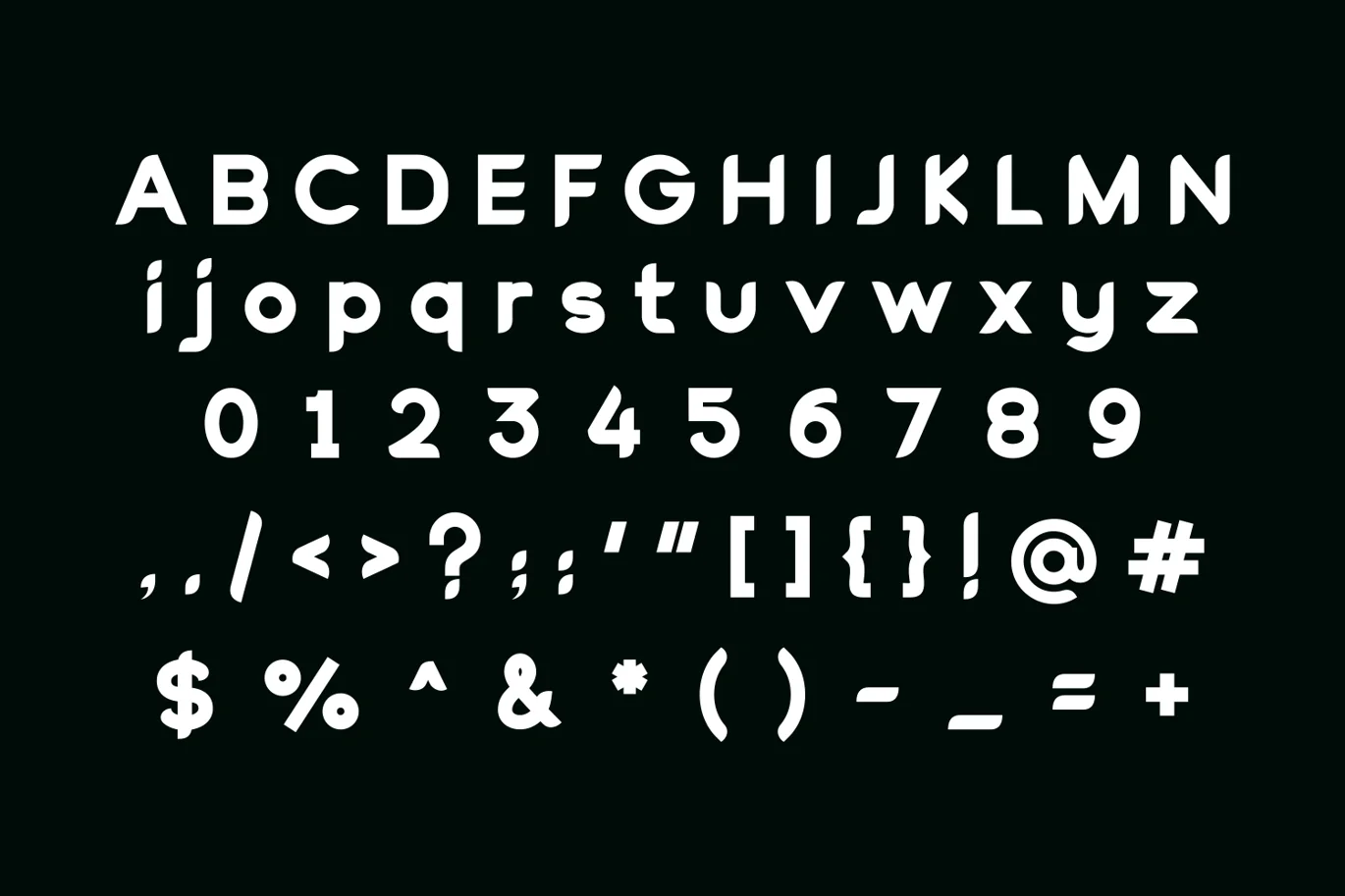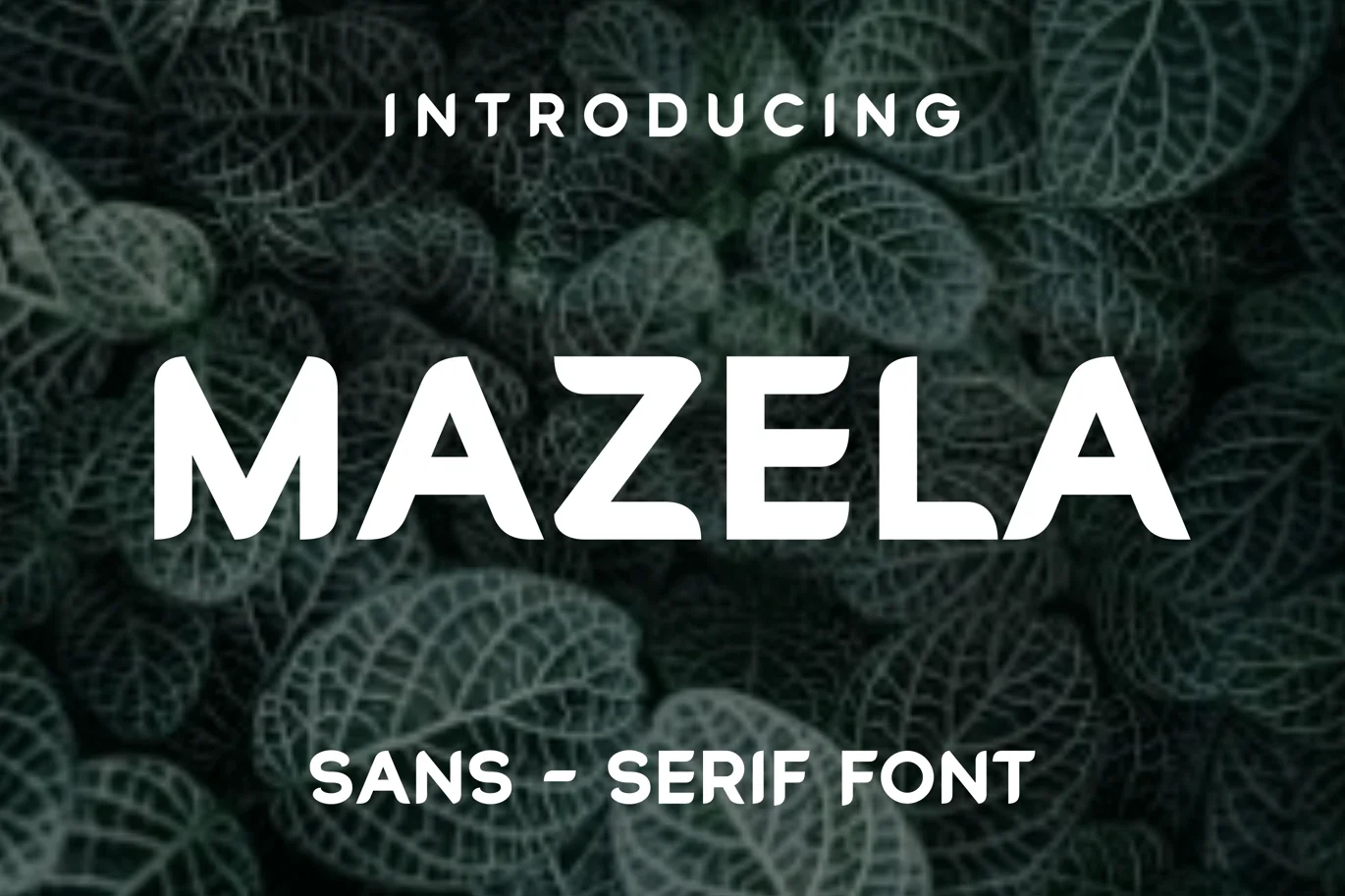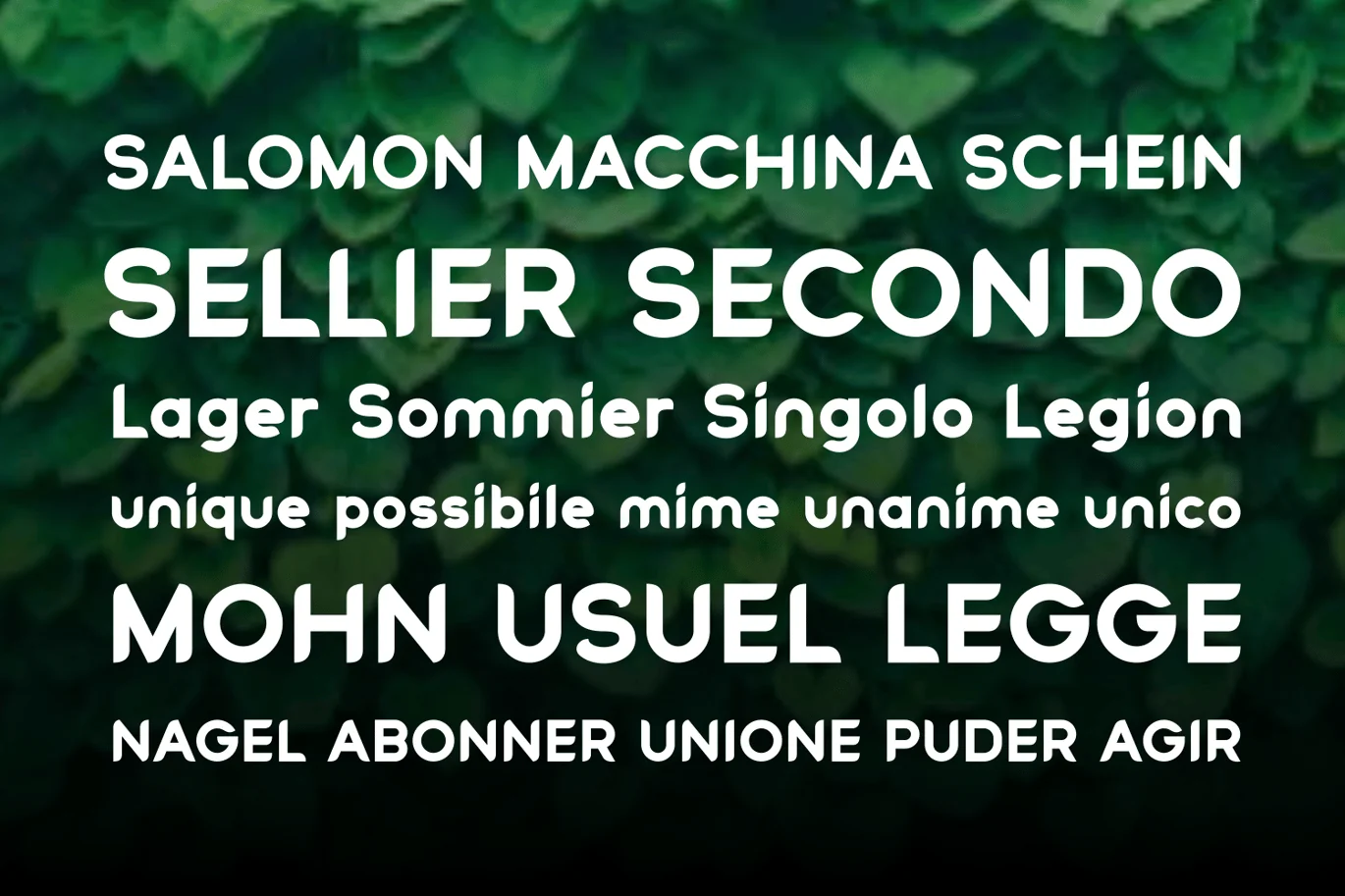
Mazela Font
Perfectly suited on print/screen. it’s perfect for namecard, poster, logo, magazine,
cover, banner, tshirt and headers, or even large-scale artwork.
*Uppercase & Lowercase
*Number
*Punctuation